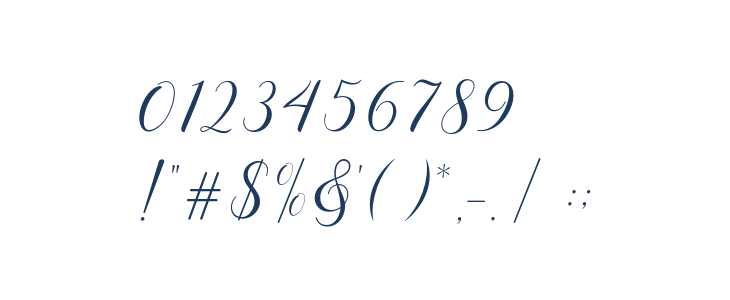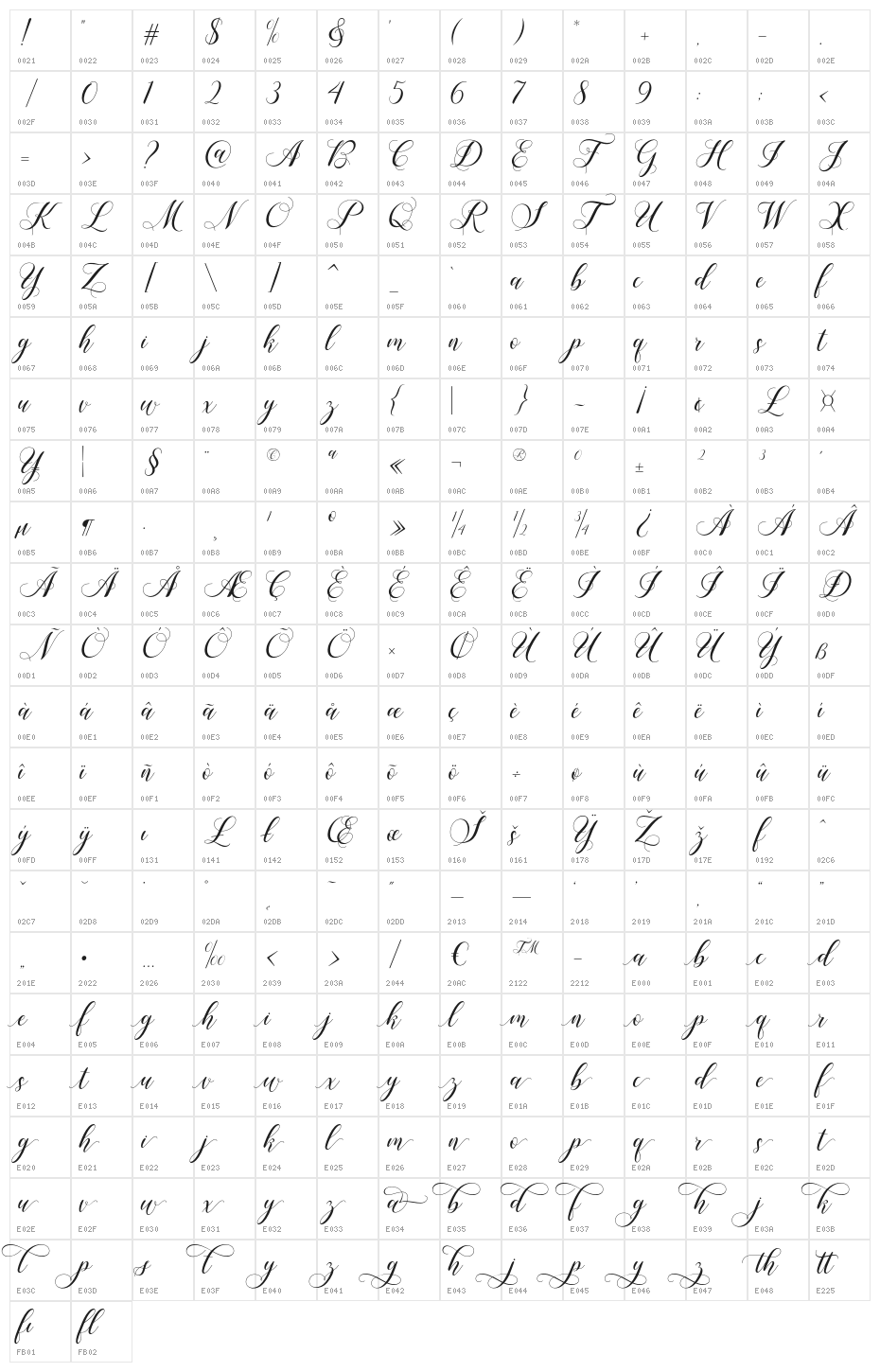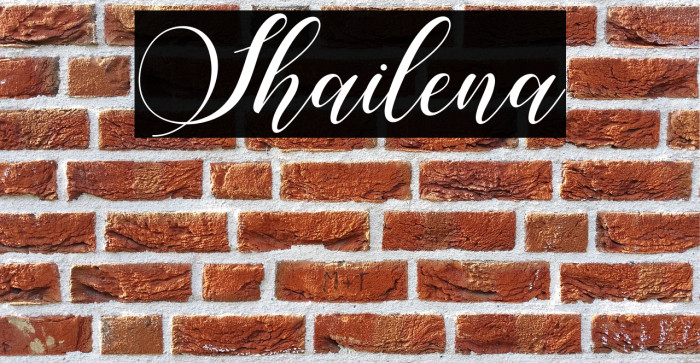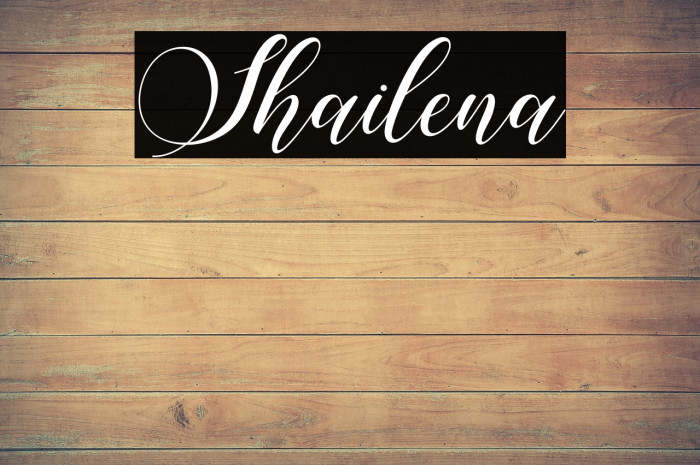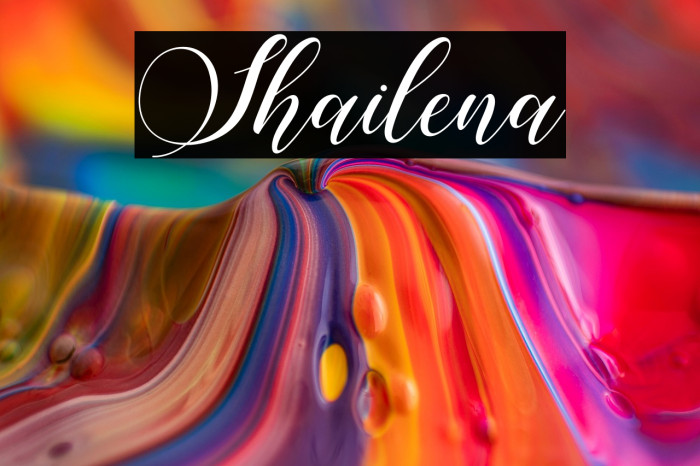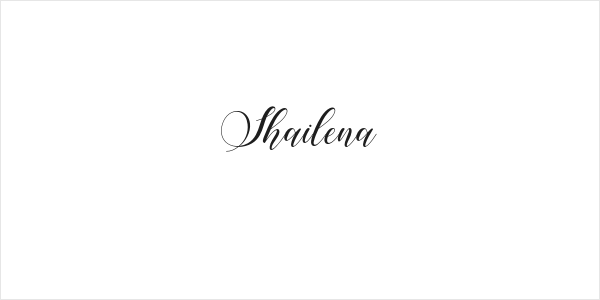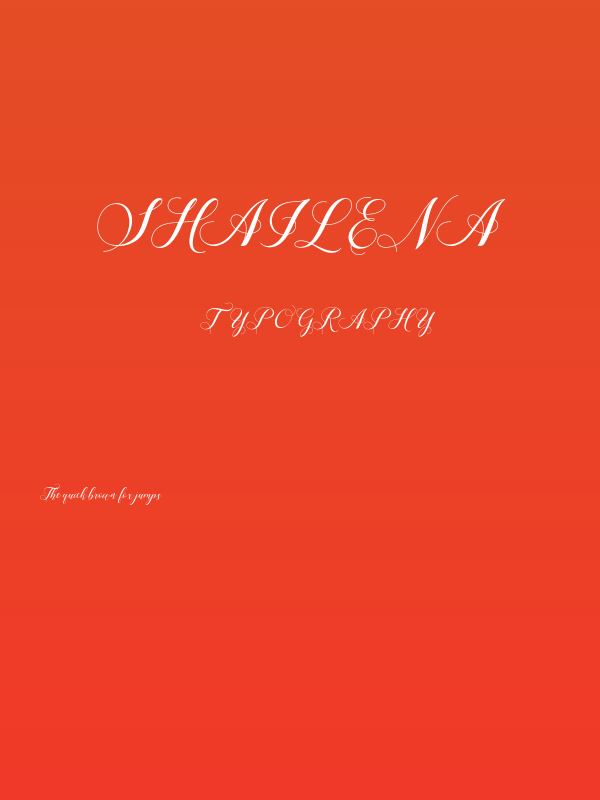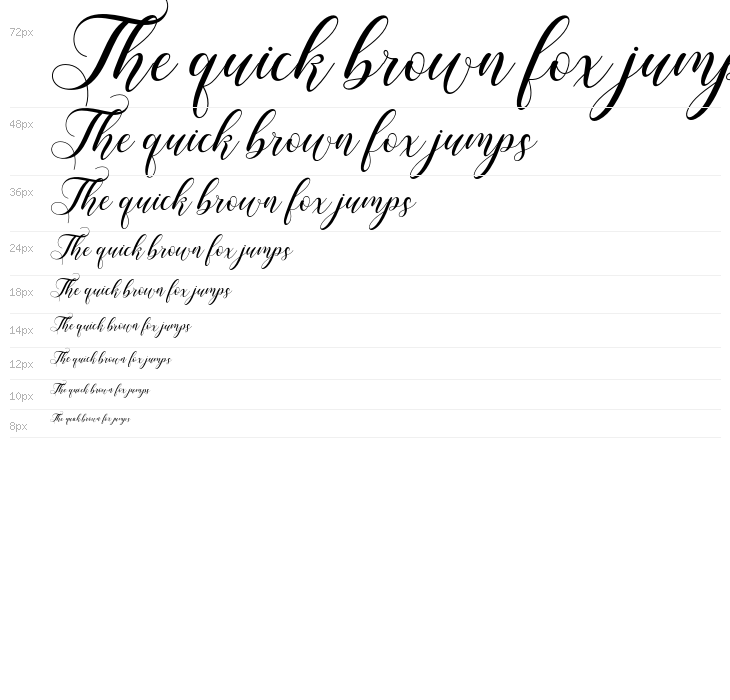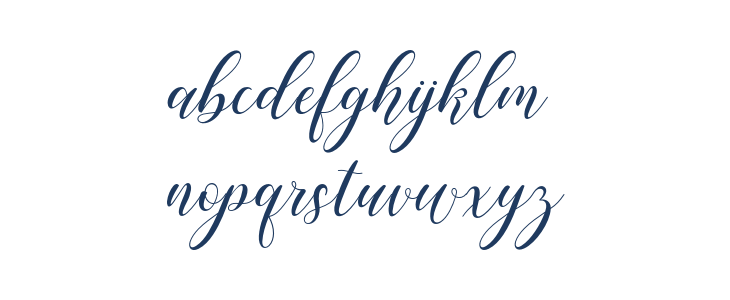
Shailena Font
Shailena Description
This elegant script font features flowing, interconnected letters with delicate flourishes and swashes that add a touch of sophistication and grace. The uppercase letters are particularly ornate, with intricate loops and curves that create a sense of movement and fluidity. The lowercase letters maintain a consistent style, offering a harmonious blend of elegance and readability. The numerals and special characters are designed to complement the overall aesthetic, ensuring a cohesive look across all text elements. This font is perfect for projects that require a touch of class and refinement.